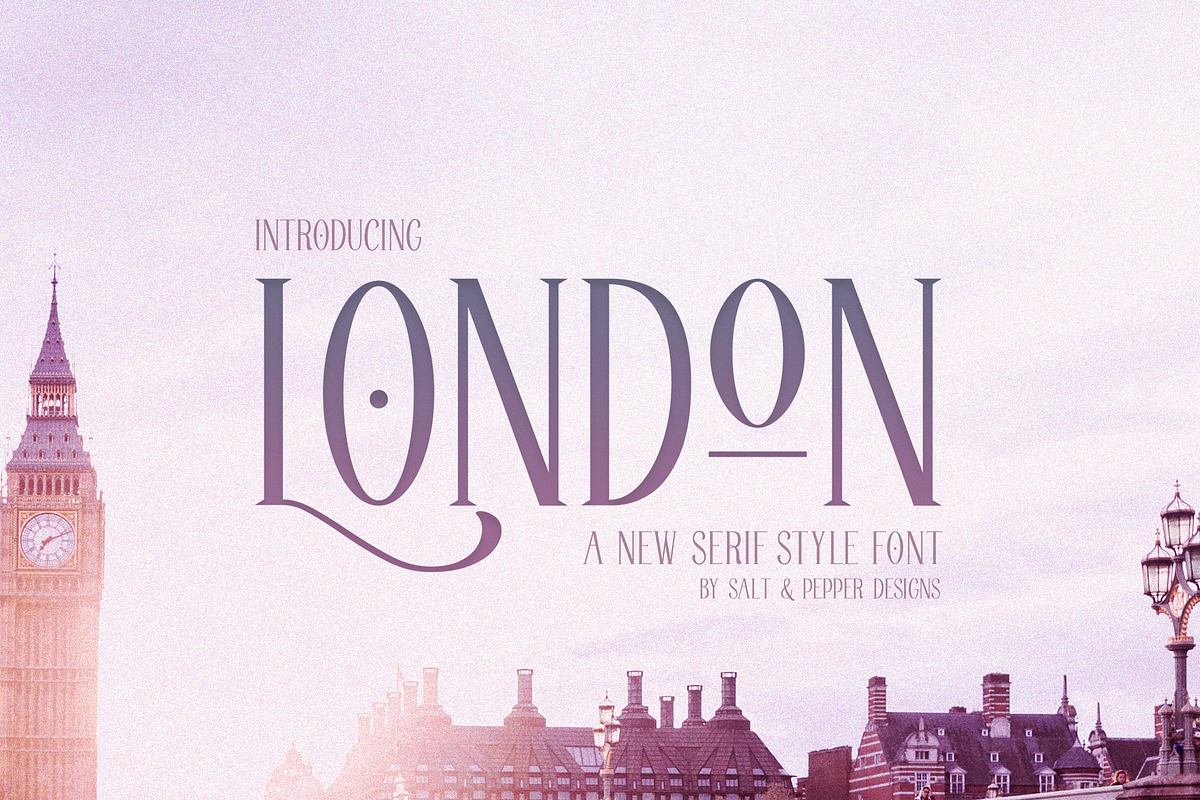
London Serif Font Free Download
Add timeless sophistication to your designs with the London Serif Font Free Download — a refined and professional typeface inspired by traditional British elegance and modern editorial aesthetics. With its clean lines, well-balanced proportions, and classic serif details, this font is ideal for branding, magazines, book covers, packaging, and corporate identity design.
London Serif delivers a sense of trust, authority, and prestige — making it a go-to choice for high-end projects that require both style and substance. Whether you're crafting a premium logo or an editorial layout, this font adds a polished and intelligent voice to your typography.